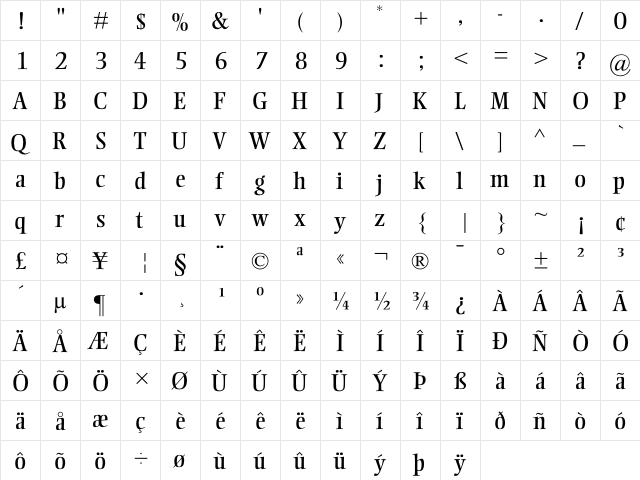
Ellington Regular
Design Context for Ellington Typeface
Ellington takes a measured approach to typography — its balanced proportions and neutral character make it a reliable workhorse for both digital and print work.